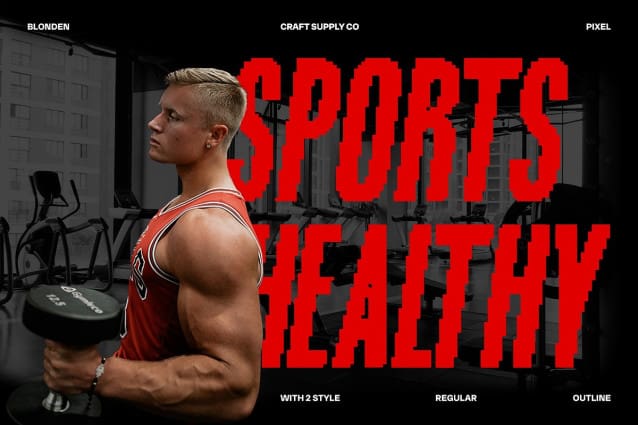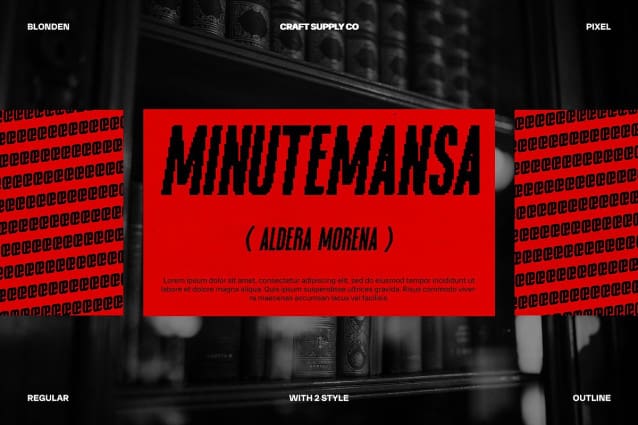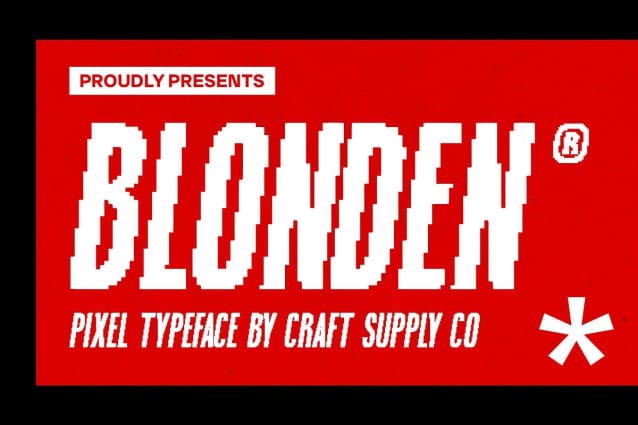
Blonden Pixel Font
Blonden Pixel Font is a condensed sans serif font with a pixel vibe, perfect for display purposes. Its compact design and pixelated elements create a unique and eye-catching look, ideal for headlines, banners, and other projects that need a bold statement.
With its space-saving design and pixelated details, Blonden offers a fresh take on traditional sans serif fonts. The condensed form allows for more text to fit in smaller spaces, making it perfect for designs that require a sleek and modern appearance.
Whether you’re designing a poster or creating a website header, Blonden Pixel Font is sure to make an impression. Its pixel vibe and condensed form make it perfect for displays that demand attention and convey a sense of modernity and style.
Despite its distinctive appearance, Blonden Pixel Font is versatile and easy to use. The font works well in both large and small sizes, making it suitable for a variety of applications, from headlines to body text. With its blend of condensed form and pixel vibe, Blonden adds a captivating and modern touch to any design.